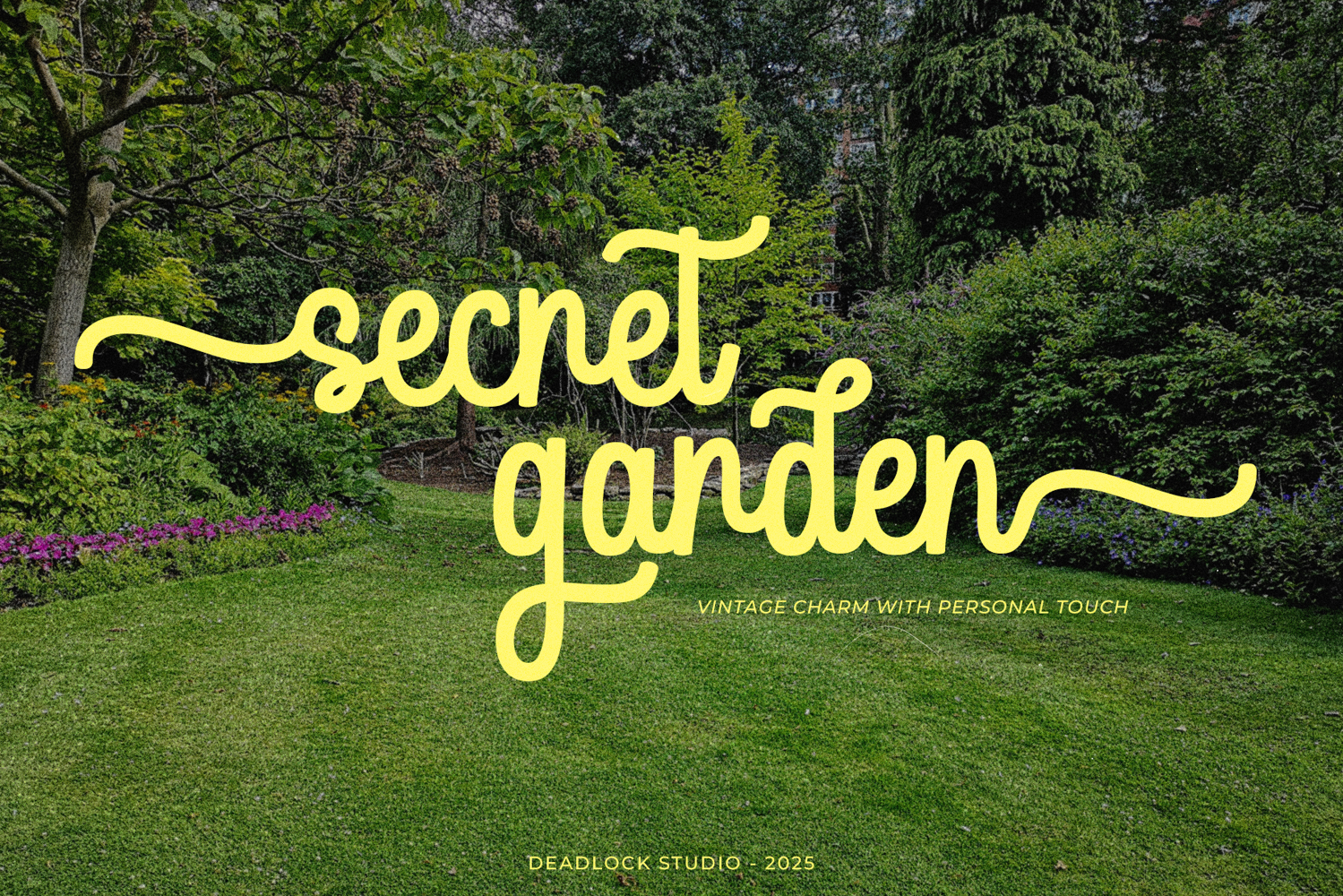
Secret Garden is an oldskull cursive handwritten font that brings vintage charm with a timeless touch. Packed with 328 characters, it comes with alternates, Stylistic Sets SS01–SS07, discretionary ligatures, and swashes. Perfect for retro posters, logos, branding, quotes, or any design that needs a nostalgic yet stylish handwritten feel.